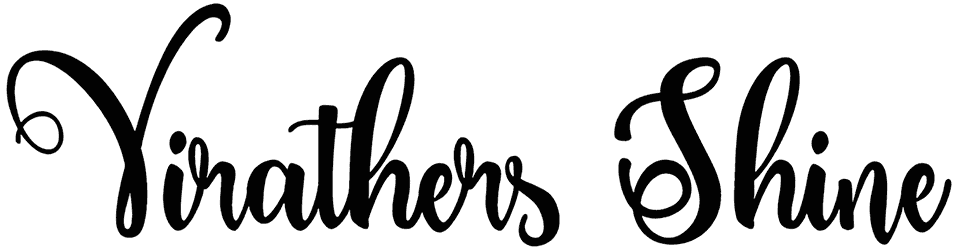
Virathers Shine Font
It’s time to refresh your design with Virathers Shine. This spring font has a curved and nested letterform, like a plant stem, which gives a fresh and natural mood to the text. Although this special font doesn’t offer numbers, supporting caps and lowercase makes up for this shortcoming and allows it to be used in long and short texts like flyers, covers, quotes, and more.